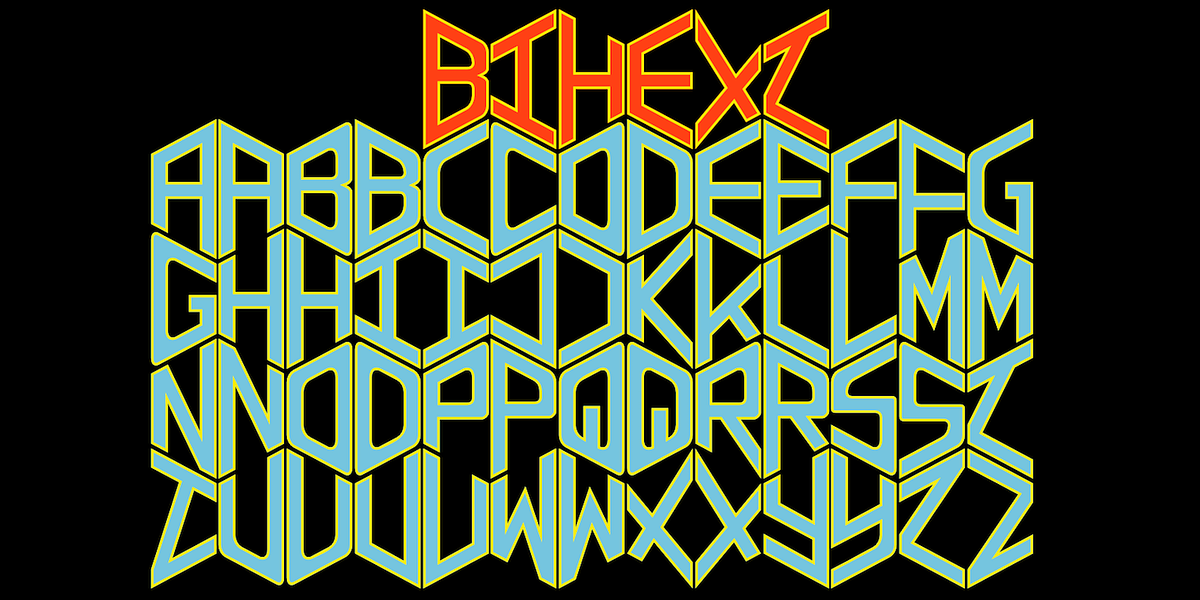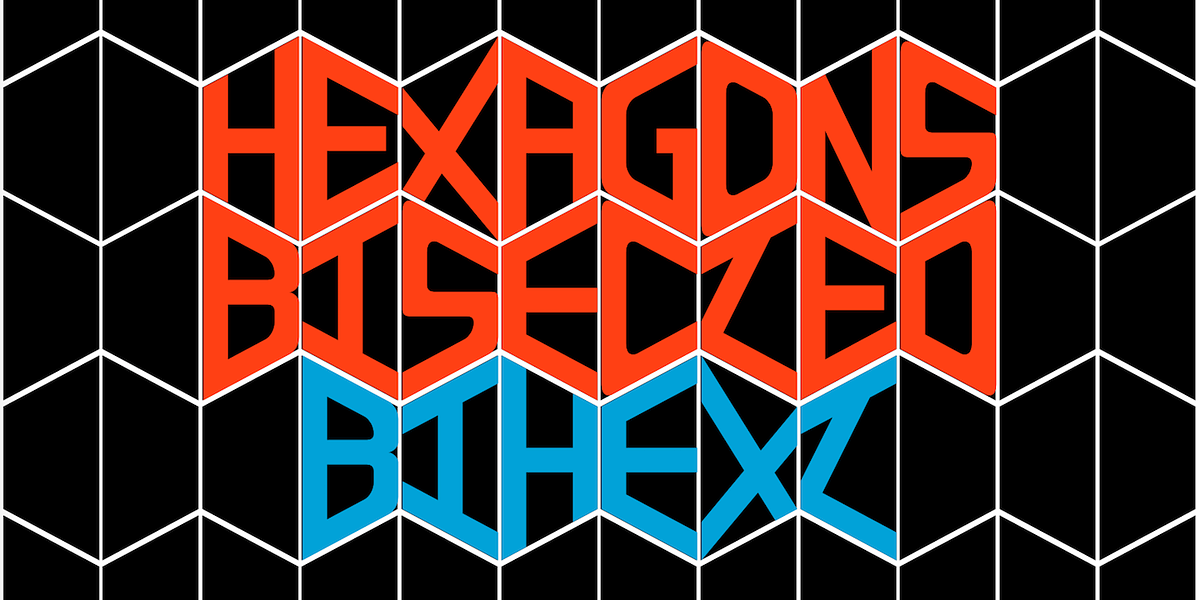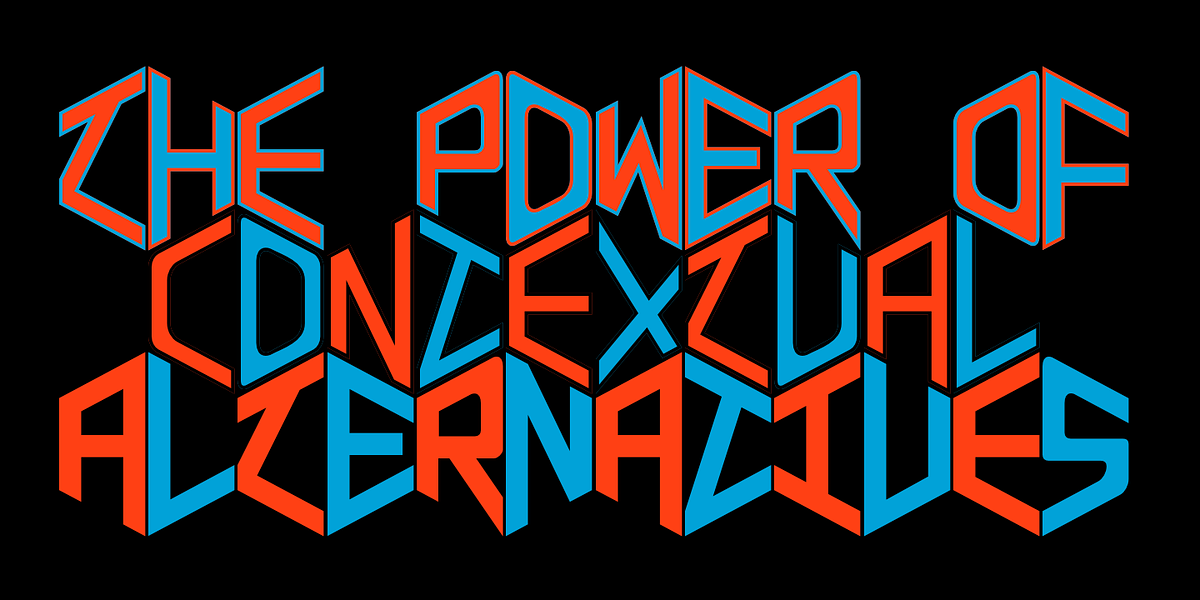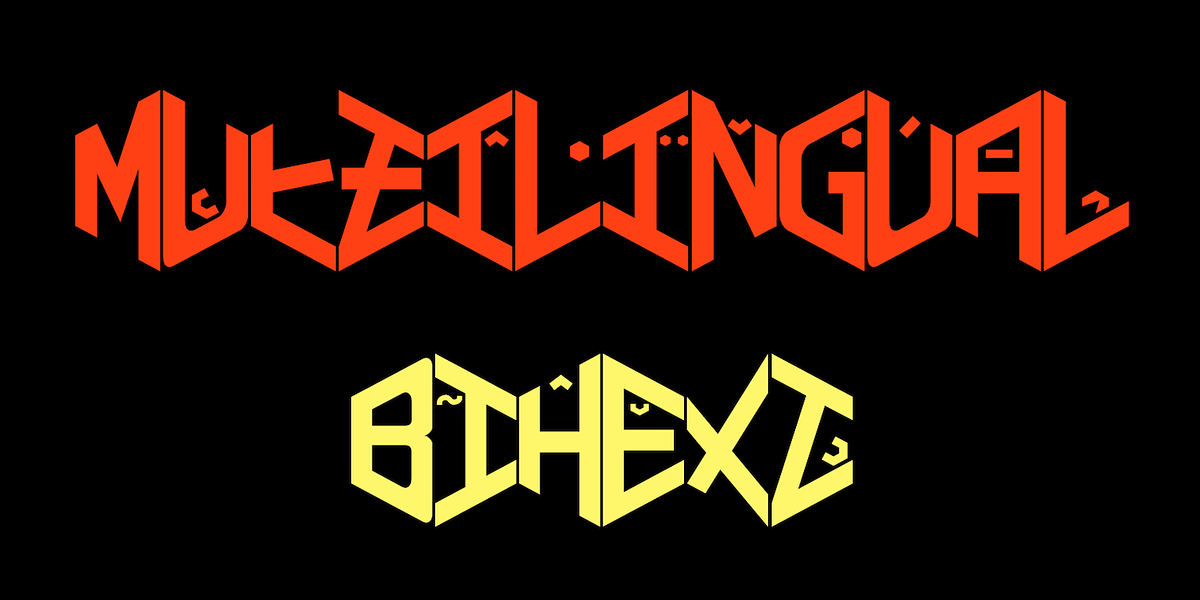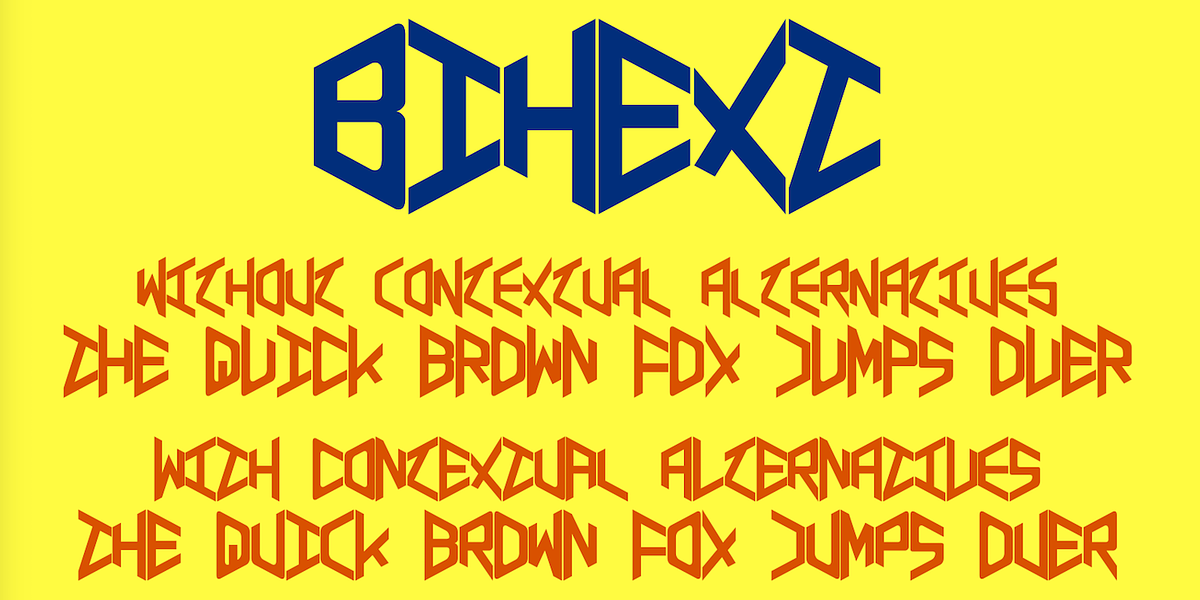
Bihext
Bihext is a geometric display font characterized by its angular, monolinear design. It's monospaced with tight letter spacing and features two alternating character sets that automatically switch using the OpenType calt feature in compatible applications. Due to its complexity, it's best suited for short bursts of text like headlines and displays rather than extended body copy.